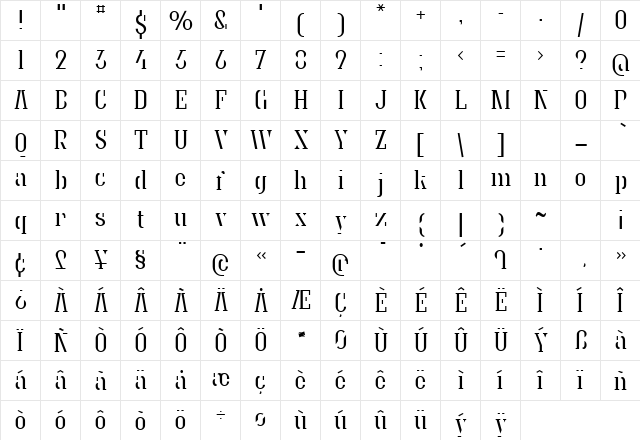
GraniteSemiStencilLight Regular
Design Context for GraniteSemiStencilLight Typeface
GraniteSemiStencilLight borrows the utilitarian aesthetic of stencil lettering, with its characteristic cutaways and no-frills construction lending an industrial edge. The delicate stroke weight brings airiness and refinement to layouts.
Ideal for industrial branding, streetwear, military-adjacent aesthetics, and urban signage projects.
Pro Tip: Pair GraniteSemiStencilLight with raw, utilitarian design elements — exposed concrete textures, flat colour, and minimal ornamentation suit it well.